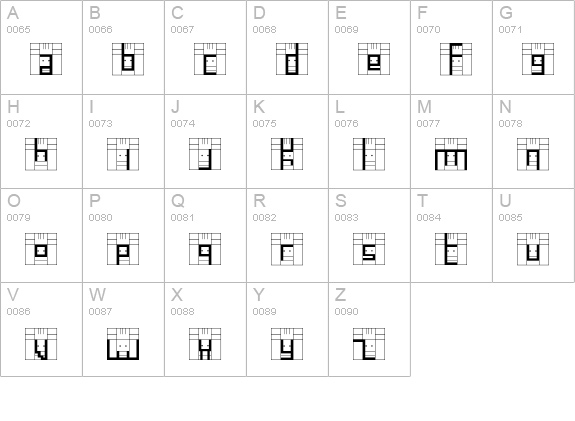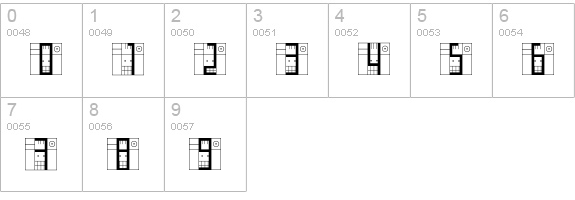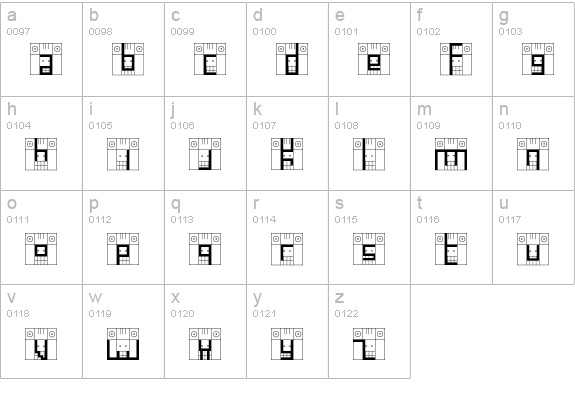
Gilcimar Font Details
Introducing Gilcimar font, a modern and elegant typeface that is perfect for a wide range of design projects. With its sleek lines and sophisticated styling, Gilcimar font is sure to make your text stand out and capture the attention of your audience. This versatile font is ideal for branding, logos, invitations, posters, and more. Its clean and contemporary look will enhance any design and give it a professional edge. Whether you're working on a corporate project or a personal one, Gilcimar font is a great choice. Best of all, Gilcimar font is free to download at FontsMarket.com. That's right, you can get your hands on this stunning font at no cost. Don't miss out on this amazing opportunity to elevate your designs with Gilcimar font. Download it today and start creating captivating visuals that truly shine.